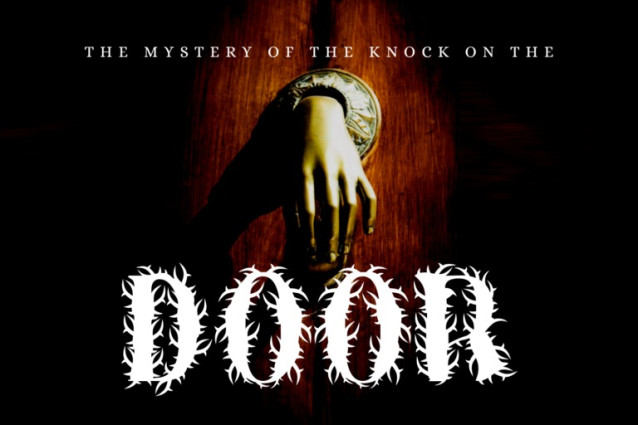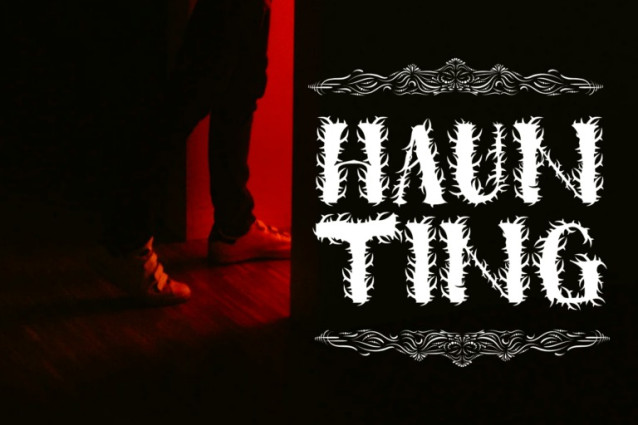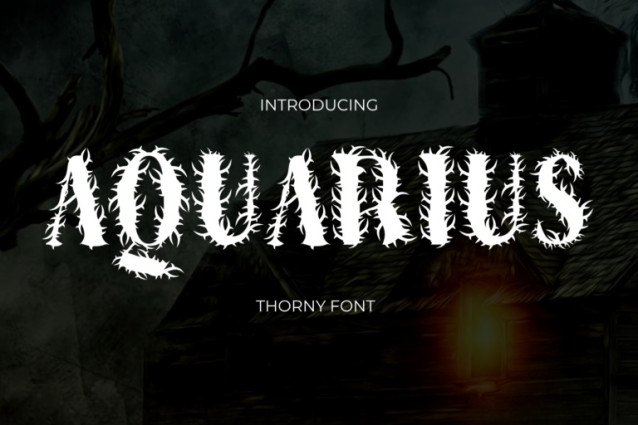
Aquarius Thorny Font
Aquarius Thorny Font is a haunting thorn-covered display font designed to evoke an atmosphere of tension, decay, and primal wildness. Each character is entangled with razor-sharp barbs and creeping vines, creating a visceral sense of fear and fascination. Perfect for horror branding, metal band logos, fantasy titles, gothic posters, or anything that needs a sharp and dramatic edge — Aquarius Thorny doesn’t whisper, it screams.